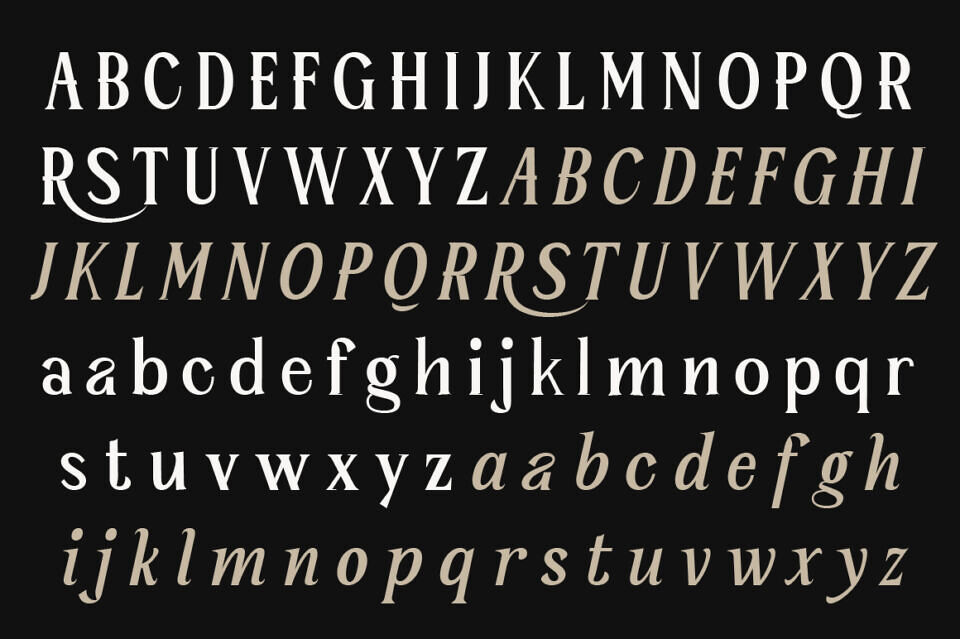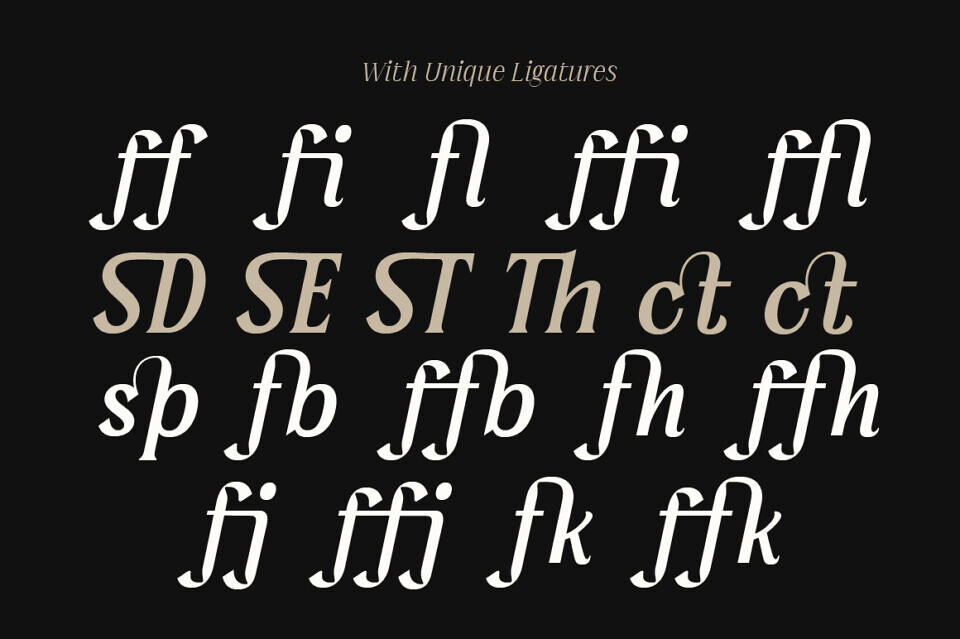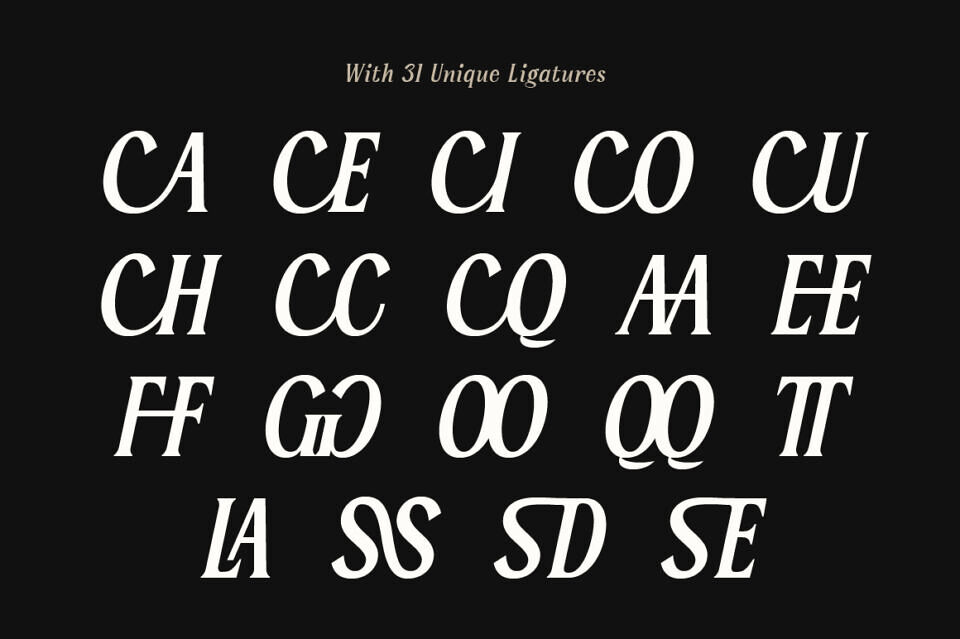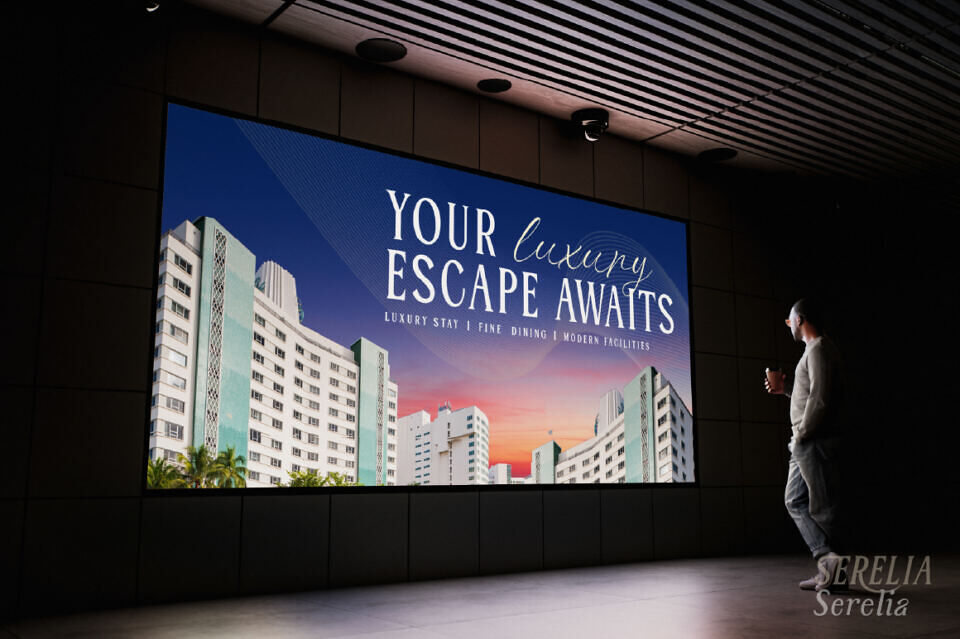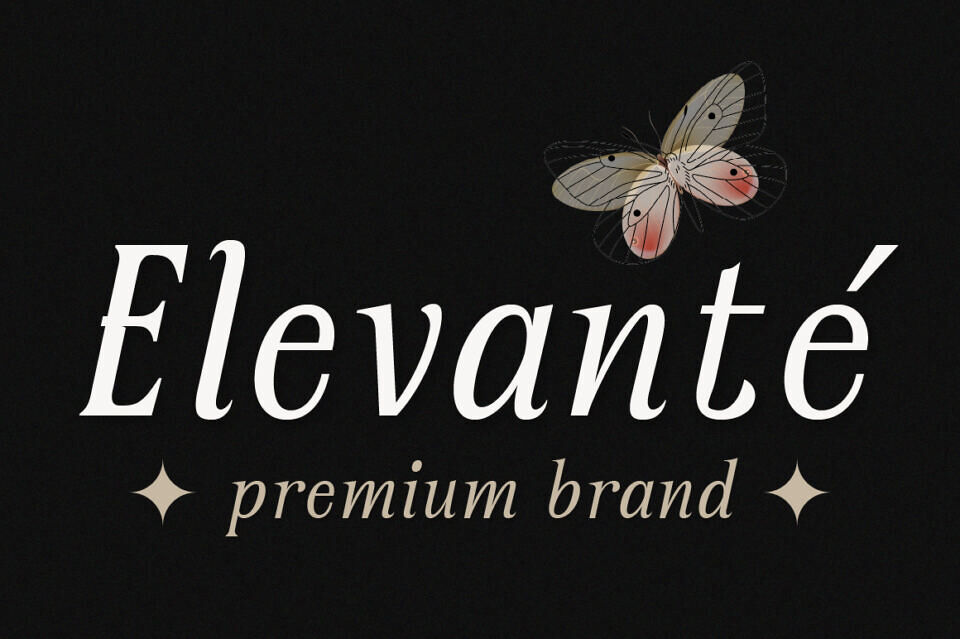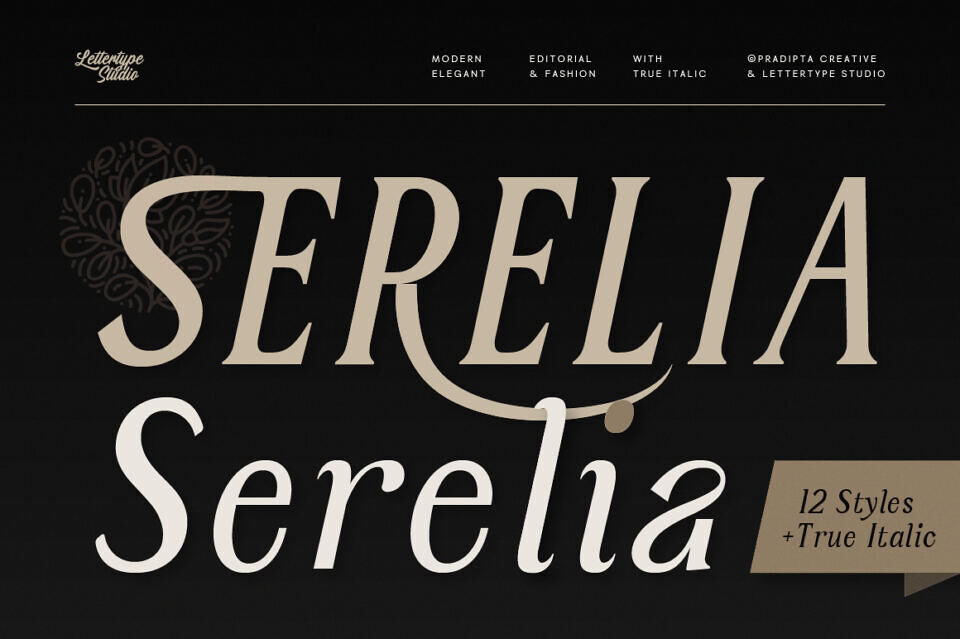
Serelia Font
Serelia was crafted to merge modern luxury with the soul of classic editorial typography. The design process began with a focus on expressive curves and refined contrast, then evolved with a deep emphasis on alternates — giving designers more personality in each composition. From A–Z and a–z variants, to the sculpted signature-style R and multiple ampersand shapes, Serelia brings a premium, crafted feel that elevates any brand presence.
To support expressive layouts, Serelia includes a rich set of custom ligatures such as CA, CE, CI, CO, CU, CH, CC, CQ, AA, EE, FF, GG, OO, QQ, SS, TT, and LA — all designed with luxury editorial rhythm. These ligatures help logos, magazine titles, and packaging headlines feel more refined and bespoke. Combined with 12 styles (6 Upright + 6 True Italic), Serelia becomes a complete serif ecosystem built for versatility.